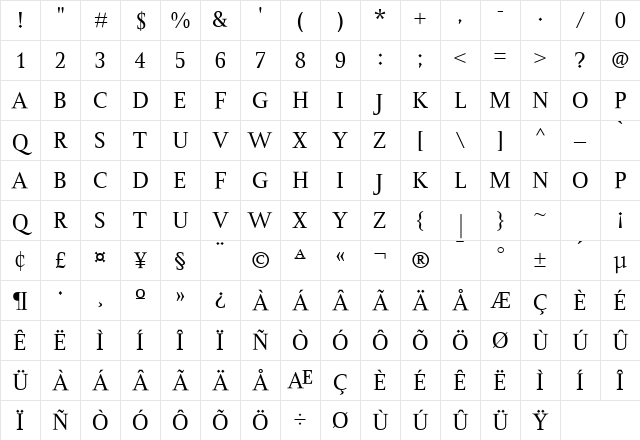
PalazzoCaps Medium
Design Context for PalazzoCaps
PalazzoCaps is a composed and adaptable typeface that performs quietly and consistently across a wide range of design contexts.